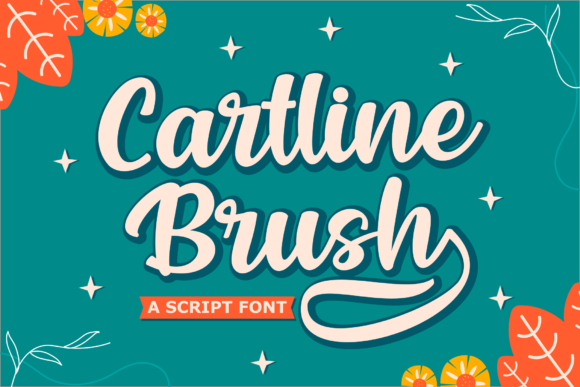
Embark on a captivating typographic journey with Cartline Brush Font, a script font brimming with charm and authenticity. Step into the world of film scripts and let your imagination run wild as you craft stories with a touch of cinematic elegance.
With Cartline Brush Font, you'll discover a font that seamlessly blends the allure of handwritten notes with the precision of digital artistry. Its carefully crafted characters exude a personal touch, adding a human element to your designs. Whether you're creating chalkboard quotes or teaching materials, Cartline Brush Font will effortlessly elevate your work with its authentic and realistic flair.
Designed by the talented Rvandtype, Cartline Brush Font boasts a comprehensive range of glyphs and swashes, accessible with ease through PUA encoding. Unleash your creativity and explore endless possibilities to customize your designs, adding a unique and captivating touch to every project.
Immerse yourself in the world of cinema with Cartline Brush Font. Its enchanting style is perfectly suited for film scripts, posters, and any project seeking a touch of cinematic allure. Transport your audience to another realm as they navigate through your words, captivated by the font's enchanting aura.
Cartline Brush Font is more than just a font; it's an invitation to explore the depths of your imagination and create designs that resonate with your audience. Its versatility extends to a wide range of applications, from branding and marketing materials to social media posts and digital content.